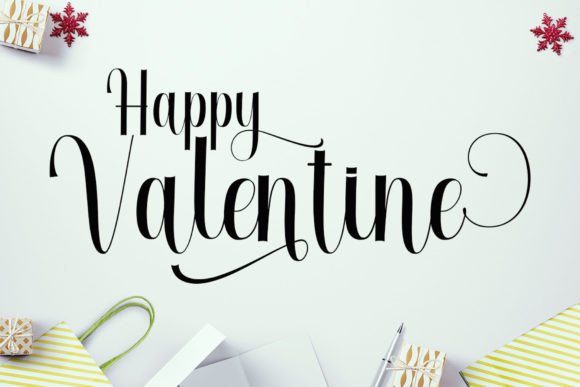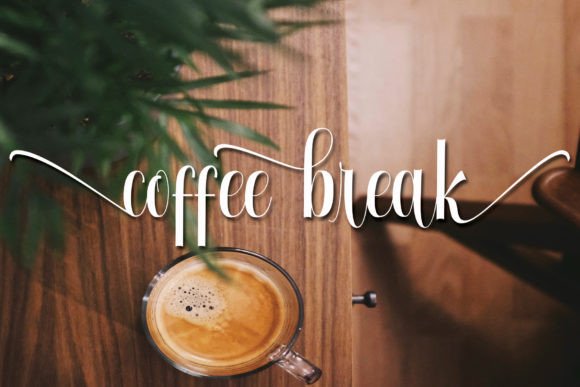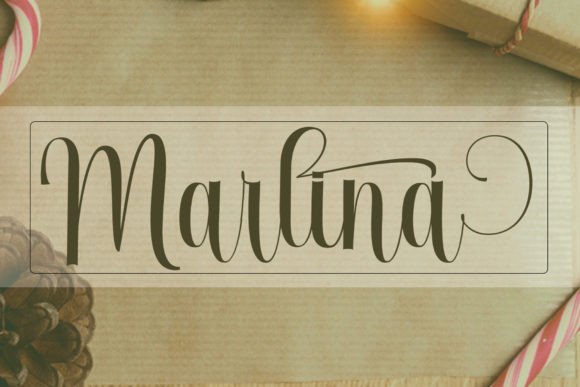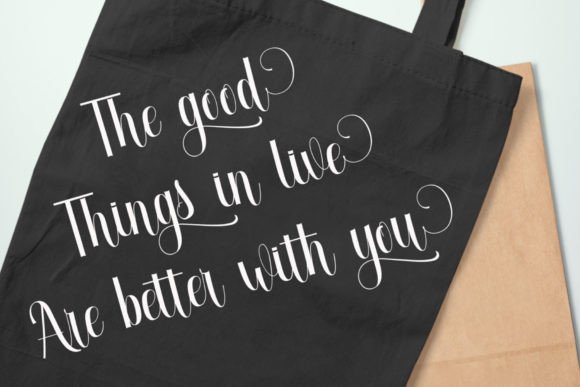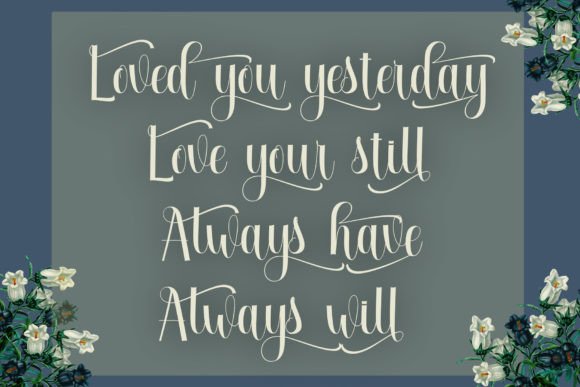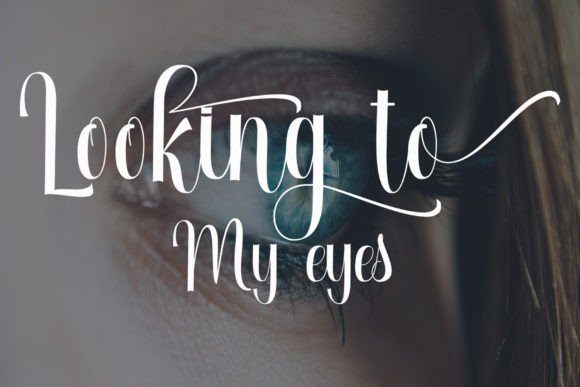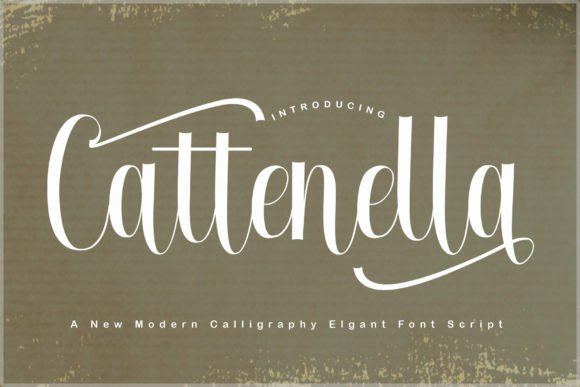
Cattenella Font: Elevate Your Designs with Elegance and Sophistication
In the world of typography, few fonts capture the essence of elegance and sophistication as beautifully as the Cattenella Font Script. This stunning calligraphy font is a versatile and stylish addition to any design project, offering a unique blend of classic and modern elements. With its varied baseline, fine lines, and exquisite details, Cattenella Font Script is the perfect choice for designers and crafters looking to add a touch of luxury to their work.
What Makes Cattenella Font Script So Special?
Cattenella Font Script is a regular, stylish calligraphy font that boasts a distinctive character. Its varied baseline gives it a dynamic, hand-written feel, while the fine lines and classic touches evoke a sense of refinement and poise. This beautiful font is perfect for a wide range of applications, from titles and signatures to logos, wedding invitations, and more.
Endless Design Possibilities with Cattenella Font Script
One of the most exciting aspects of Cattenella Font Script is its incredible versatility. This gorgeous font can be used for a vast array of design projects, including:
- Titles and headings: Add a touch of elegance to your titles and headings with Cattenella Font Script.
- Signatures: Create beautiful, one-of-a-kind signatures that make a lasting impression.
- Logos: Use Cattenella Font Script to craft stunning logos that exude sophistication and style.
- Wedding invitations: Make your wedding invitations truly unforgettable with this exquisite font.
- T-shirts and apparel: Add a touch of luxury to your t-shirts, hoodies, and other apparel with Cattenella Font Script.
- Letterheads and stationery: Elevate your letterheads, stationery, and business cards with this elegant font.
- Nameplates and labels: Create beautiful nameplates and labels that make a lasting impression.
- News and magazines: Use Cattenella Font Script to add a touch of sophistication to your news and magazine designs.
- Posters and flyers: Create eye-catching posters and flyers that showcase your brand’s style and elegance.
- Badges and awards: Design stunning badges and awards that feature the beauty of Cattenella Font Script.
Why Designers and Crafters Love Cattenella Font Script
Designers and crafters around the world have fallen in love with Cattenella Font Script, and it’s easy to see why. This gorgeous font offers:
- Elegance and sophistication: Cattenella Font Script adds a touch of luxury to any design project.
- Versatility: This font can be used for a wide range of applications, from titles and signatures to logos and wedding invitations.
- Unique character: The varied baseline and fine lines of Cattenella Font Script give it a distinctive, hand-written feel.
- Easy to read: Despite its elegant nature, Cattenella Font Script is surprisingly easy to read, making it perfect for body text and headlines.
How to Use Cattenella Font Script in Your Designs
Using Cattenella Font Script in your designs is incredibly easy. Here are a few tips to get you started:
- Pair it with contrasting fonts: Combine Cattenella Font Script with bold, modern fonts to create a stunning contrast.
- Experiment with colors: Try pairing Cattenella Font Script with a range of colors, from rich jewel tones to soft pastels.
- Play with textures: Add depth and interest to your designs by combining Cattenella Font Script with different textures and patterns.
| Font Name | Cattenella Font |
In conclusion, Cattenella Font Script is a truly exceptional calligraphy font that offers a unique blend of elegance, sophistication, and versatility. Whether you’re a designer, crafter, or simply someone who appreciates beautiful typography, this gorgeous font is sure to inspire. With its varied baseline, fine lines, and classic touches, Cattenella Font Script is the perfect choice for anyone looking to elevate their designs and add a touch of luxury to their work.